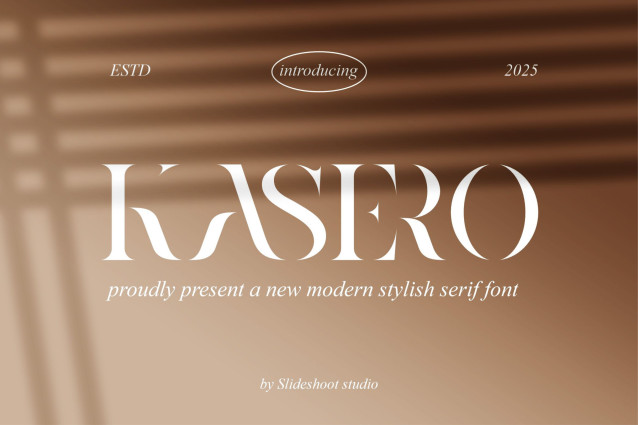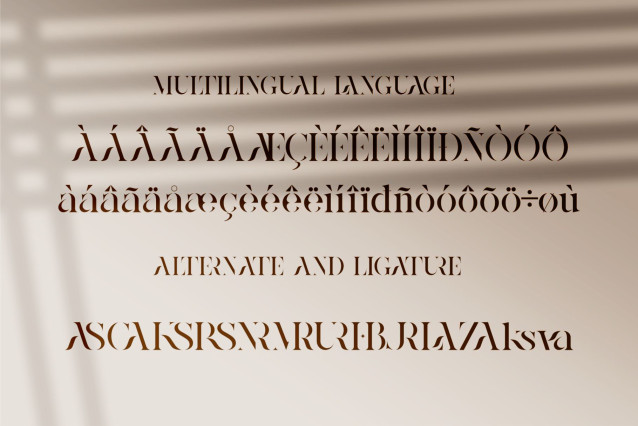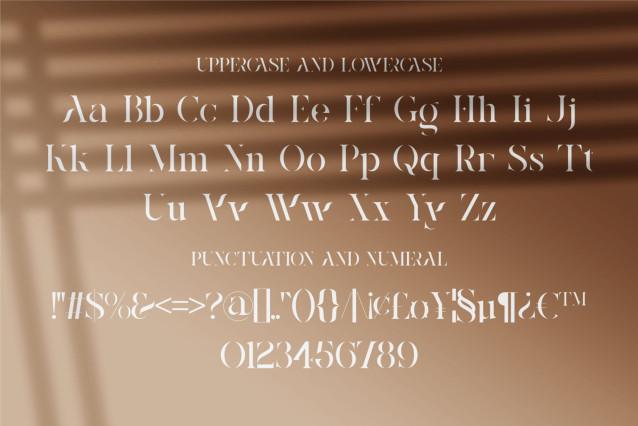
Kasero Font
Kasero Font – Stencil Serif is a modern and classy font type for all branding and logo designs. This modern and classy Serif font has a beautiful character. This font is suitable for invitation card designs, cool logos, movie titles, movie names, business cards, book titles, brand names, and various other designs. Kasero Stencil Serif is a smooth serif font that exudes sophistication and the moment. Its stylish ligatures make this font a perfect partner for any project.
Designer Name: SlideShoot
Classification: Serif Fonts, Stencil Fonts